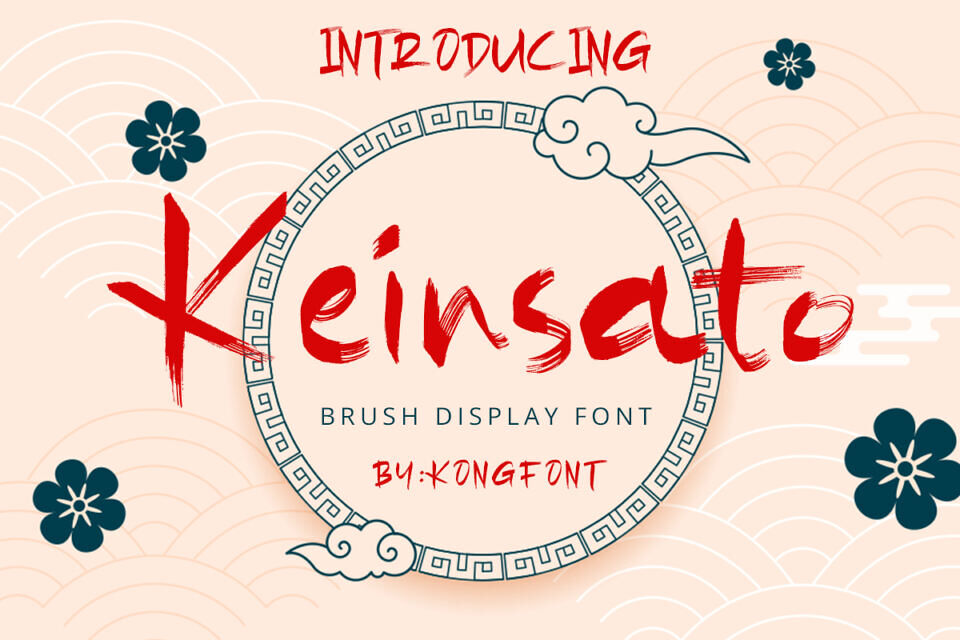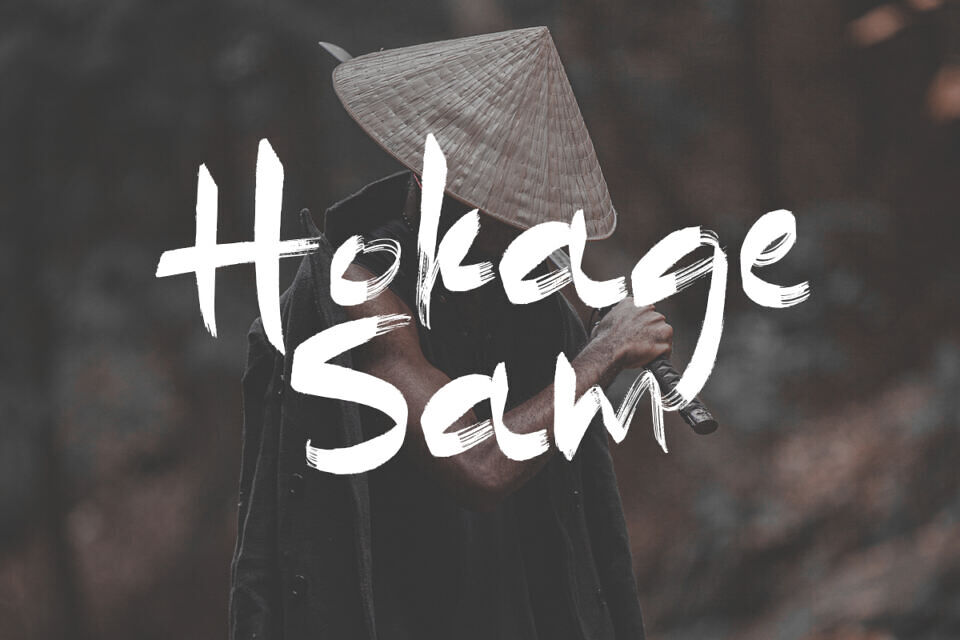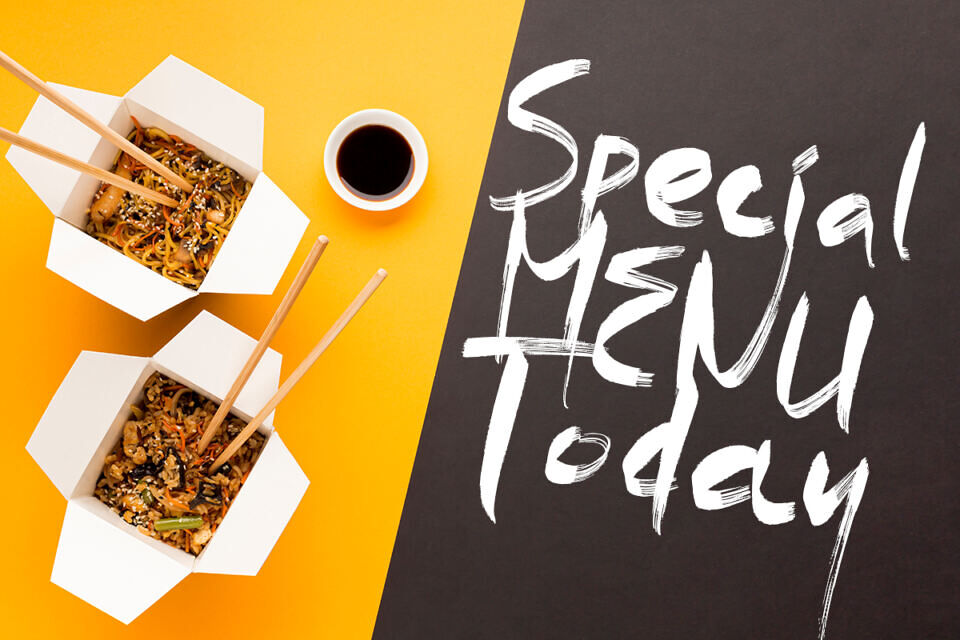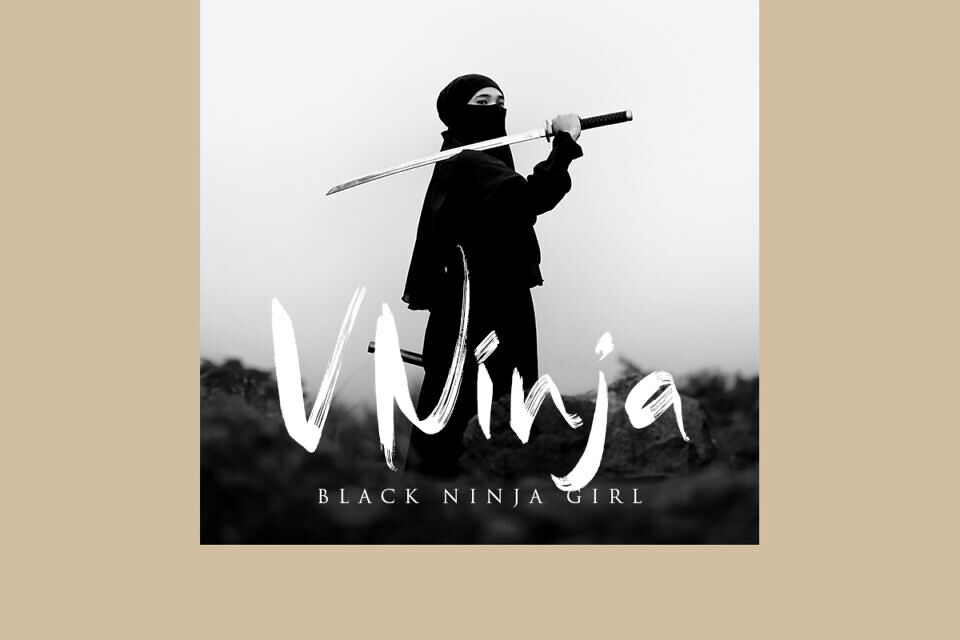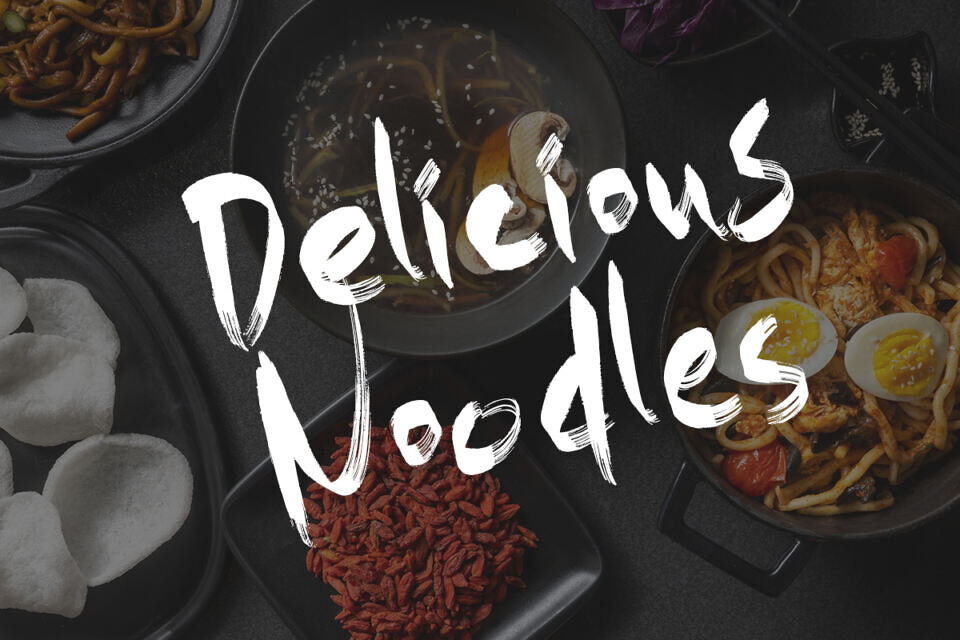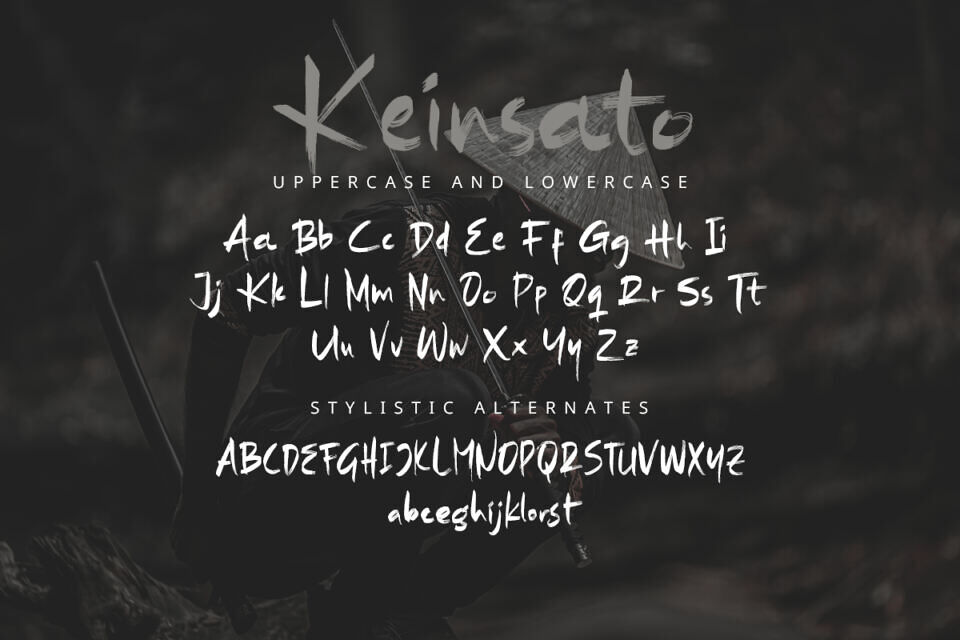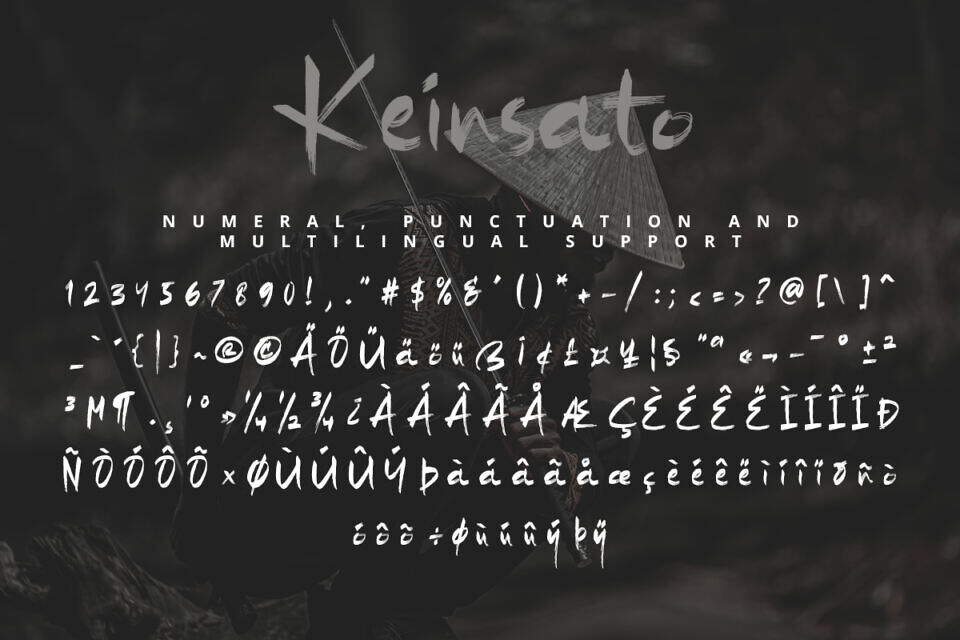
Keinsato is a Modern Brush Font that blends elegance with a raw, brushed texture, featuring distinctive, incomplete strokes that maintain clear letterforms. Its modern and bold character makes it ideal for fashion branding, especially for jackets, t-shirts, and apparel tags.
Whether for screen printing, product packaging, or promotional materials, Keinsato delivers a strong and stylish impression. Perfect for both physical and digital use, it enhances posters, catalogs, and social media content—making it a top choice for entrepreneurs looking to elevate their brand’s visual identity.